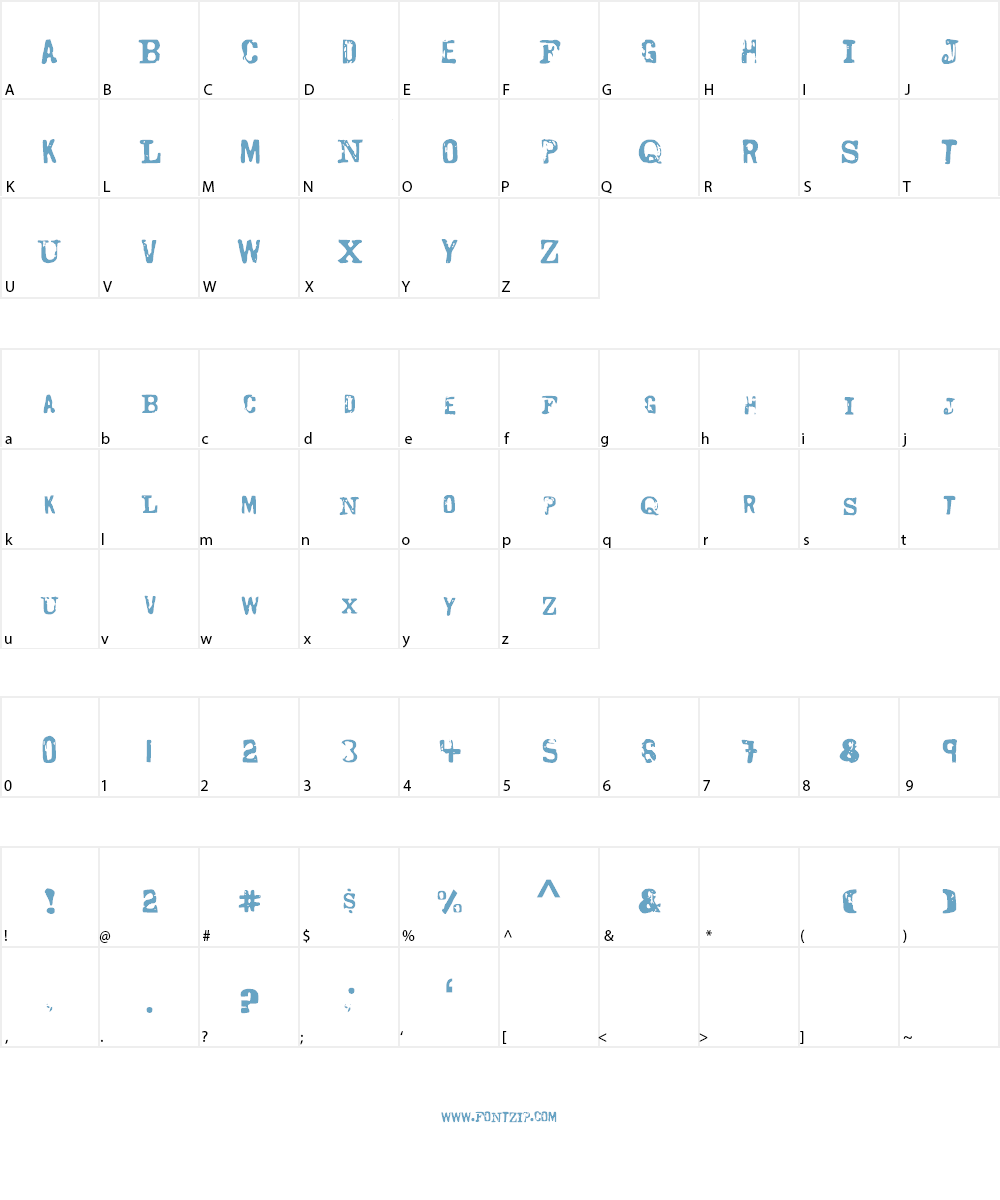
Using various rubber stamps, scanning them and then distorting them in PS I made this font with old, ripped display posters in mind. The rougher the better!
**UPDATE** Now with numbers and new symbols (02.12.2016)